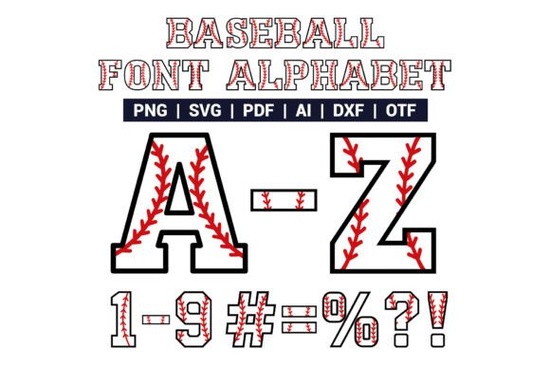
Looking for a font that brings the energy of baseball into your designs? The Baseball Alphabet Font is a unique and versatile choice for anyone involved in sports-themed projects. Whether you're creating custom t-shirts, signage, or promotional materials, this font adds a nostalgic and athletic flair that stands out. Its bold structure and red stitching details make it instantly recognizable, perfect for anything from Little League logos to fan merchandise.
This font isn’t just about style it’s built for practical use. The inclusion of numbers and punctuation makes it easy to create scoreboard-style layouts, which is especially useful for event invitations, banners, and social media graphics. Its legibility ensures that your message is clear whether it's on a stadium sign or a digital broadcast. The bold, blocky design also works well for engraving and laser cutting, making it a go-to option for crafters and print-on-demand sellers.
Why Choose the Baseball Alphabet Font?
If you're looking for a font that combines functionality with a strong visual identity, the Baseball Alphabet Font is a solid choice. It’s ideal for designers who want to add a sporty touch to their work without compromising on quality. The red stitching details give each letter a distinctive look, while the clean lines ensure readability in both large and small sizes.
How to Use the Baseball Alphabet Font
When using this font, consider the context of your project. For instance, if you're designing a birthday invitation for a young baseball fan, the bold letters will add a fun and energetic feel. On the other hand, if you're working on a professional team logo, the clean structure of the font ensures it looks polished and modern.
Final Thoughts
The Baseball Alphabet Font is a valuable tool for anyone involved in sports branding, crafting, or design. Its combination of style, functionality, and ease of use makes it a popular choice among designers and hobbyists alike. With support for multiple file formats and a wide range of applications, it’s a font that can grow with your creative needs.